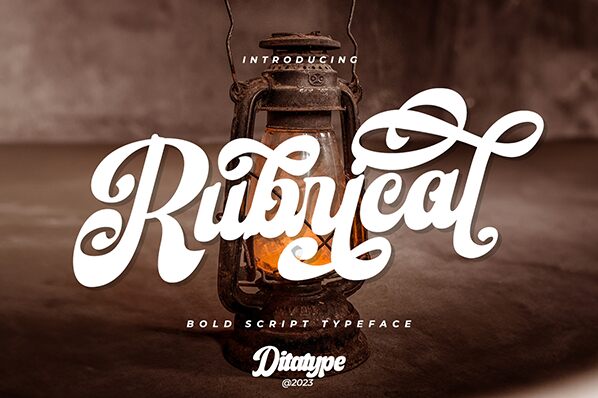
Rubrical font designed by Ditatype is an expressive bold typeface that captures attention with its dramatic flair. Distinct, ornament-like characters are drawn with thick brushstrokes to create a retro, vintage-inspired style. Elegant and impactful, this display font naturally creates intriguing visual compositions that are meant to attract all who come near.
Use the free vintage font for business cards, book covers/inner pages, packaging boxes and stickers, posters/flyers/brochures/tickets/invitations/magazine cutouts headlines and subheadings. Consider using it for typography books or sort of books where even small details matter like poetry or romantic/adventure novels.